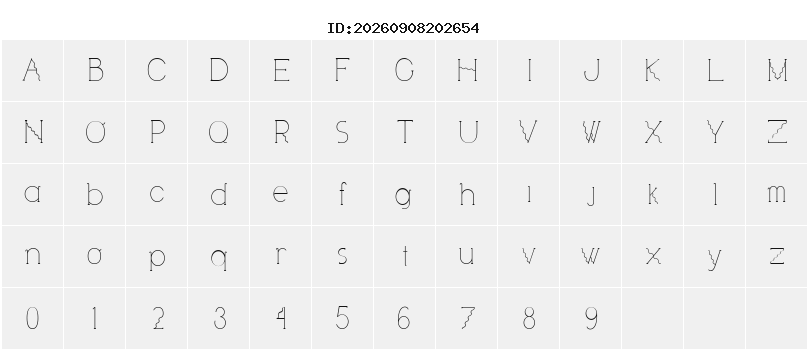
Visionair Preview
• Font Name: Visionair
• Full Font Name: Visionair
About Visionair.ttf
Visionair.ttf is a modern, elegant sans-serif font designed for ultimate readability and visual harmony. Perfect for branding, headlines, web design, and print materials.